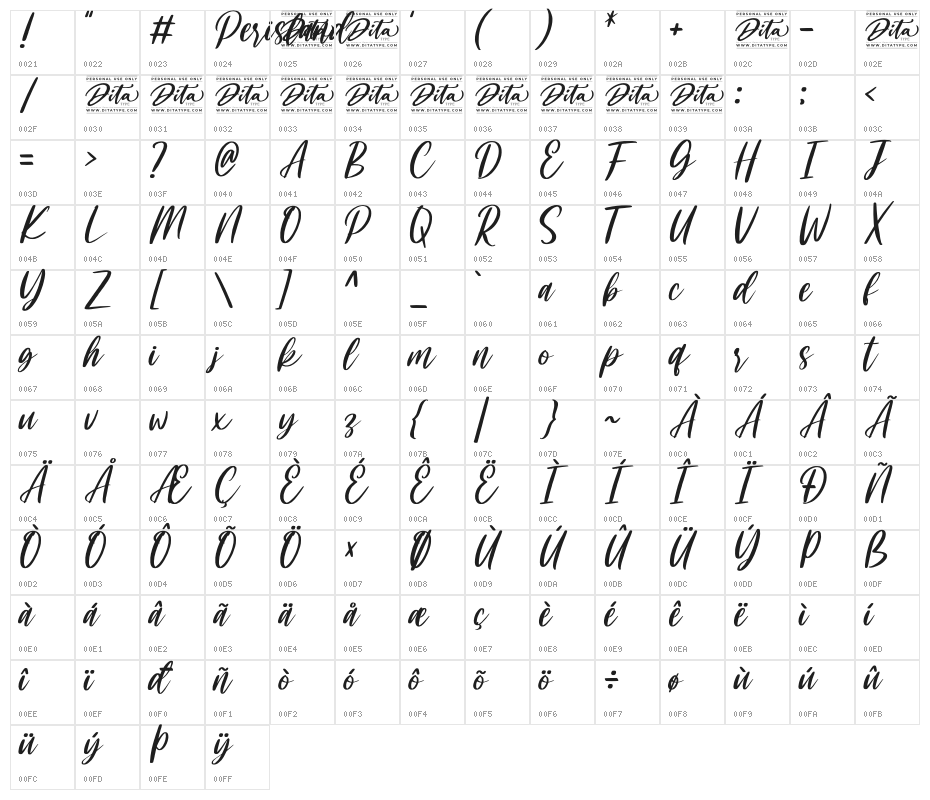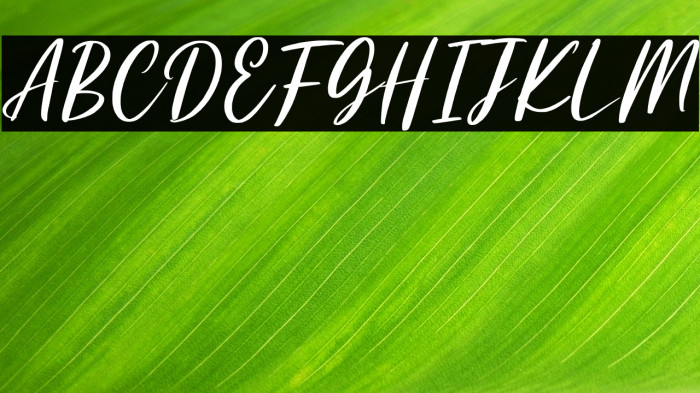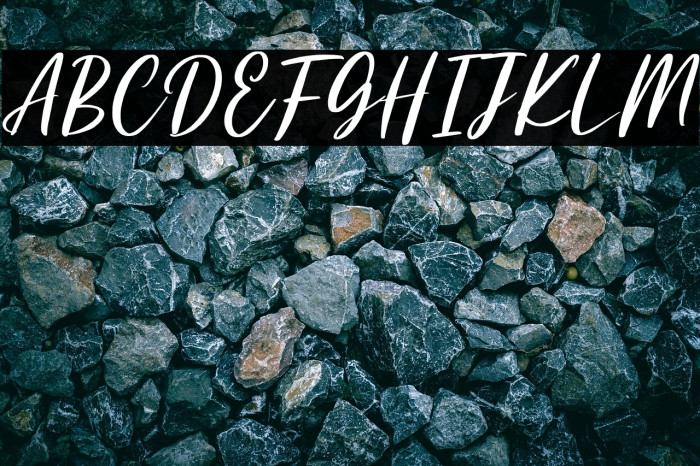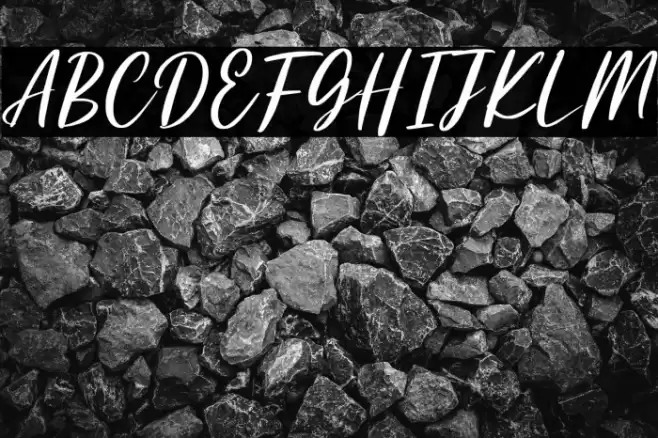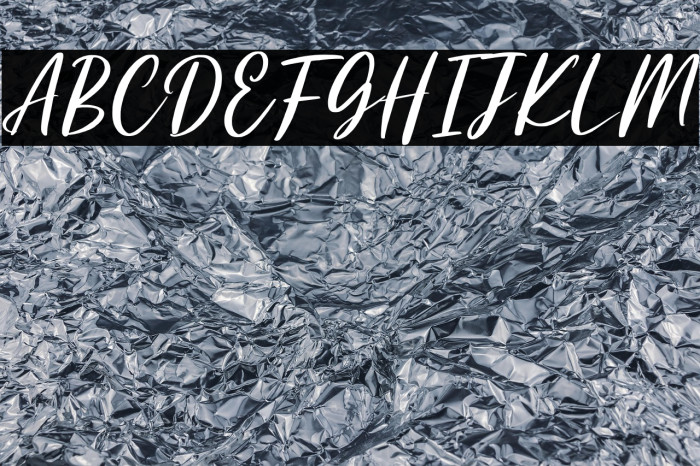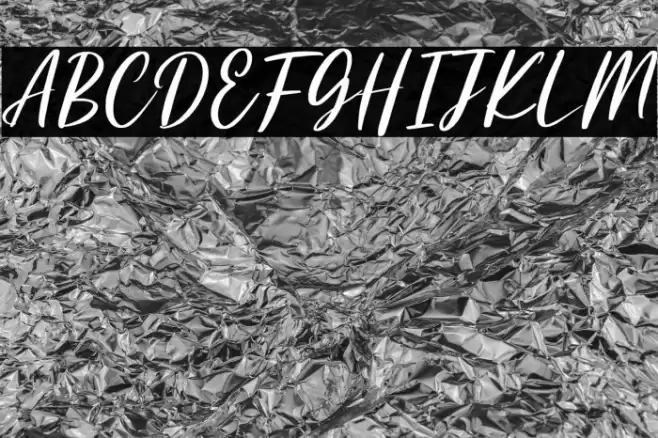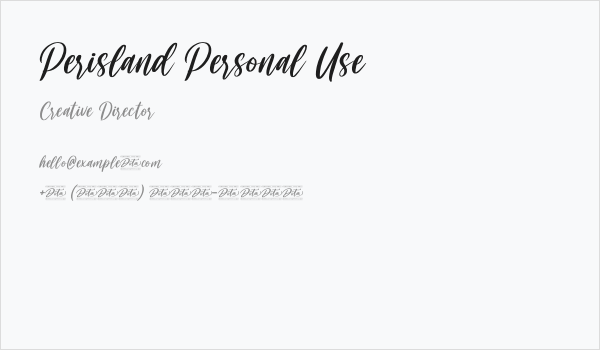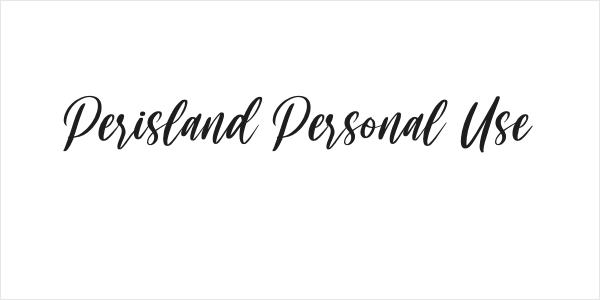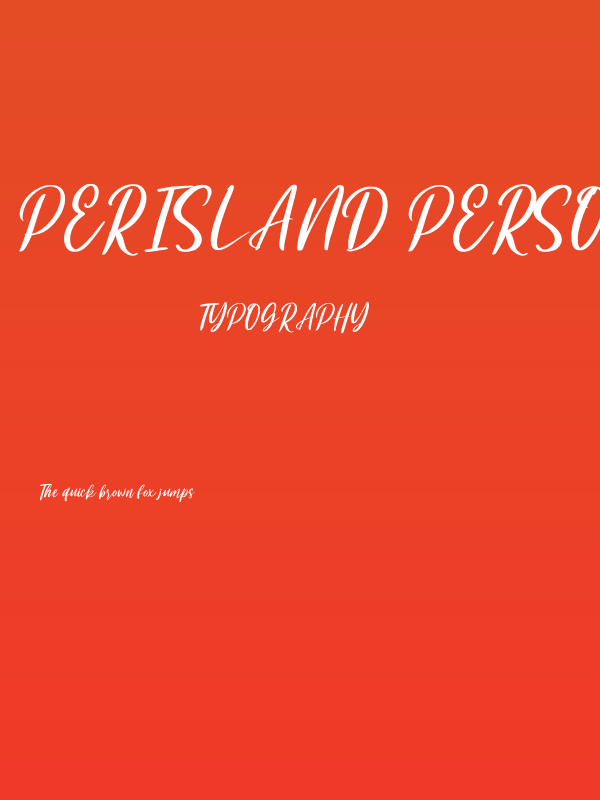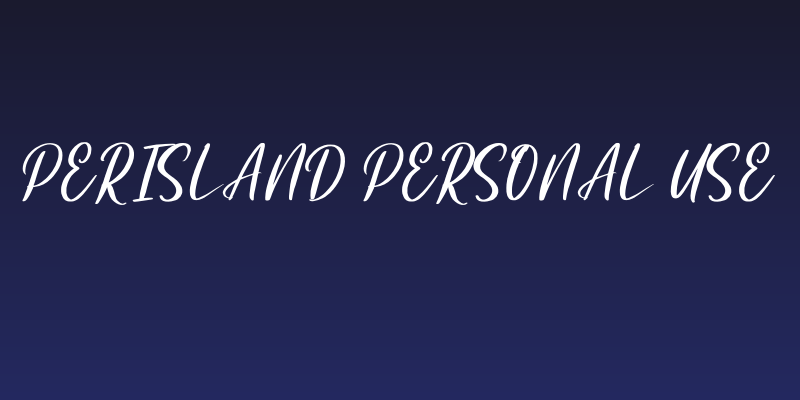
Perisland Personal Use Font
Perisland Personal Use Description
This font features a flowing, cursive style with a modern touch, characterized by its elegant and smooth letterforms. The uppercase letters are tall and slightly slanted, giving a sense of movement and grace. The lowercase letters maintain a consistent flow, with some letters featuring loops and swashes that add to the decorative appeal. The strokes are moderately thick, providing a balanced contrast that enhances readability while maintaining a stylish appearance. This font is perfect for creating a personal and inviting feel, ideal for projects that require a touch of elegance and sophistication.
| Use Case | Logos, Invitations, Social Media |
| Proposed Projects | Ideal for wedding invitations, greeting cards, branding, and social media graphics. |